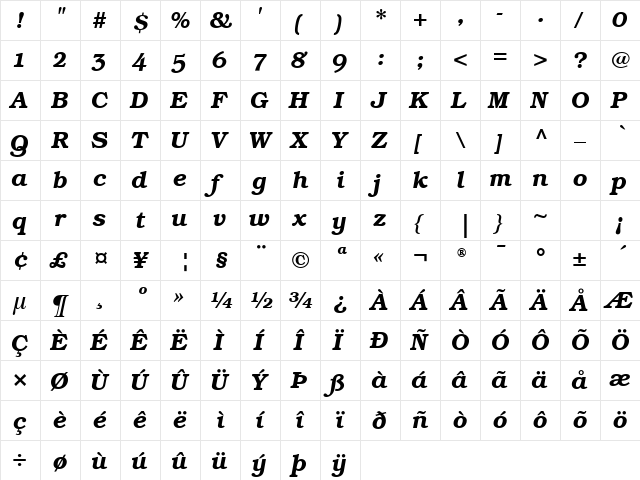
Bookman OsF Demi Italic Font Preview
Bookman OsF Demi Italic
Design Context for Bookman OsF Typeface
Bookman OsF takes a measured approach to typography — its balanced proportions and neutral character make it a reliable workhorse for both digital and print work. The dynamic lean of this cut emphasises speed and emphasis in any layout.